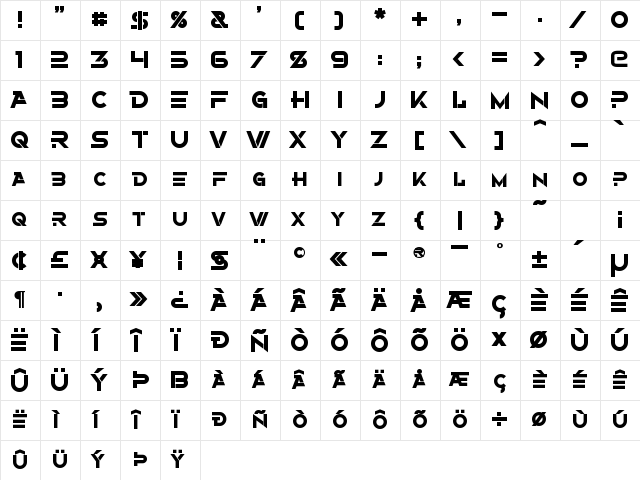
Alternity Bold
| Foundry | Pixel Sagas |
| Designer | Neale Davidson |
Design Context for Alternity Typeface
Alternity is a composed and adaptable typeface that performs quietly and consistently across a wide range of design contexts. The heavy weight commands attention and anchors typographic hierarchies.